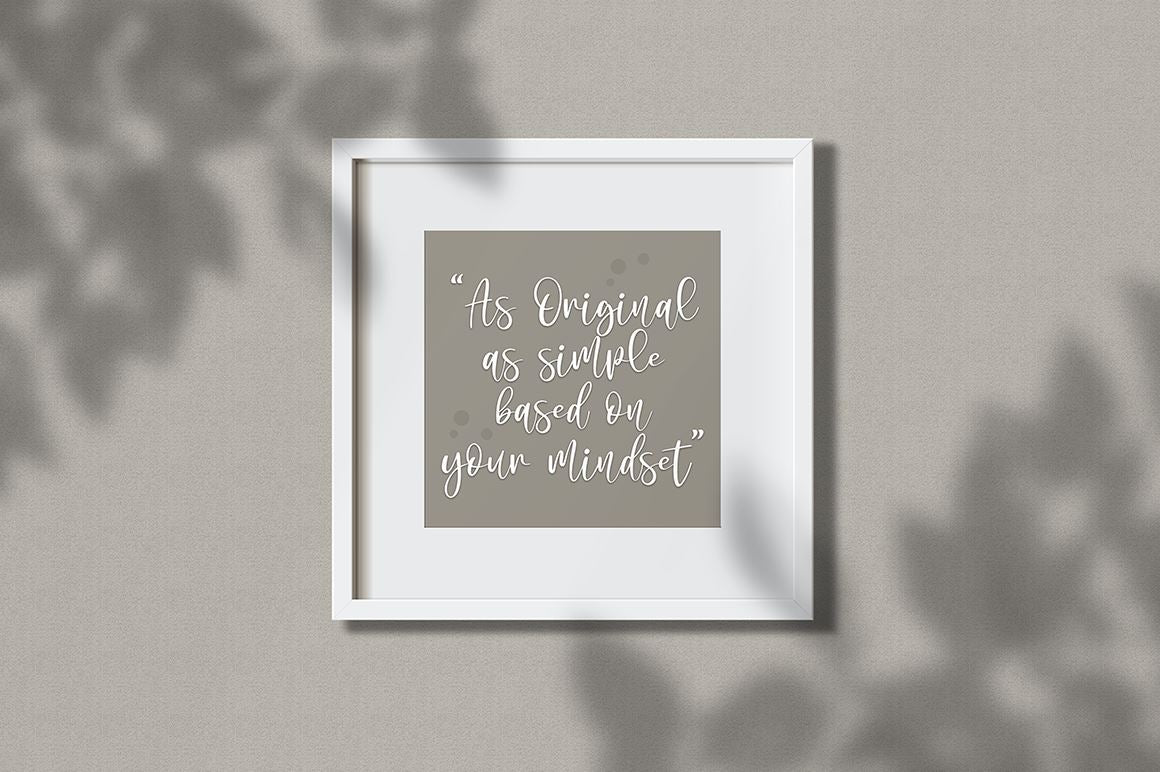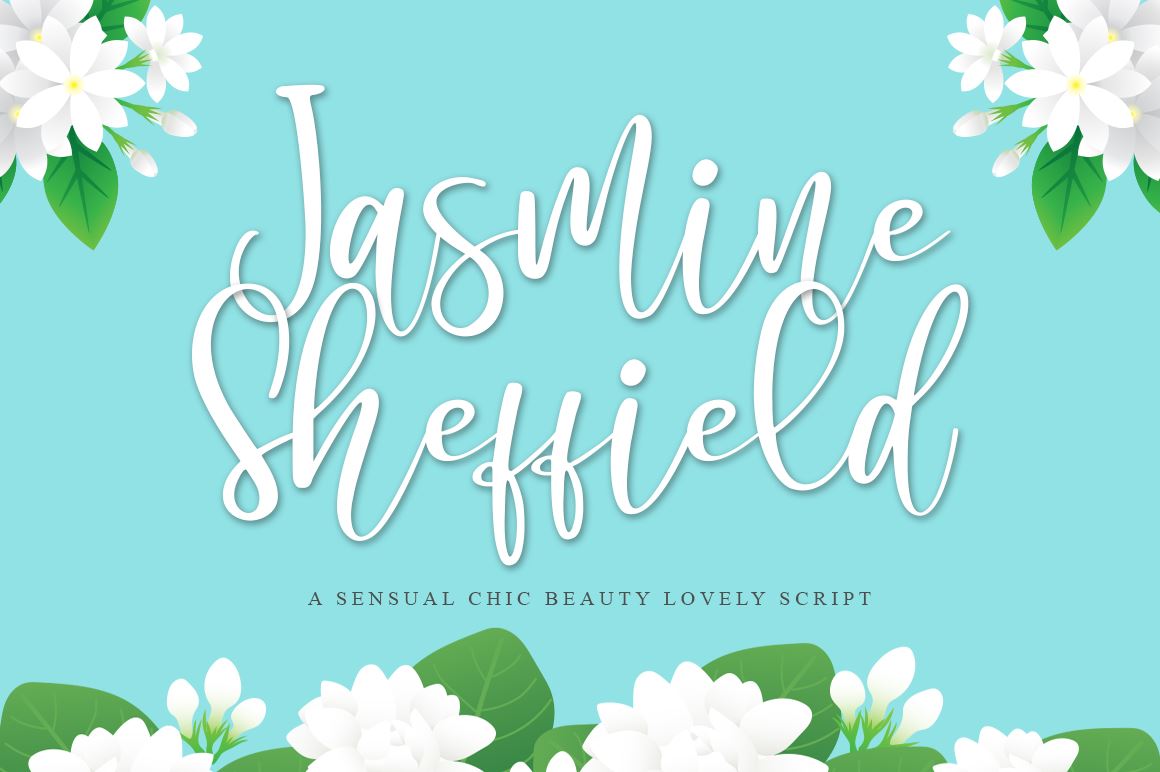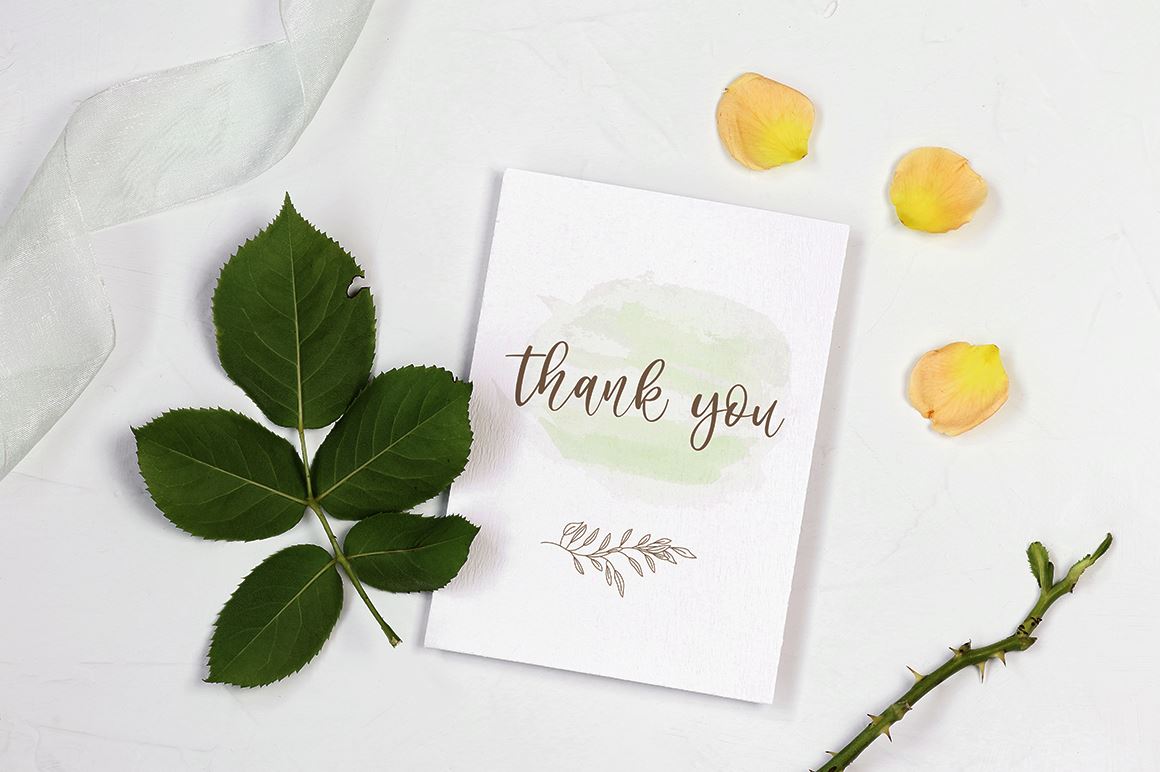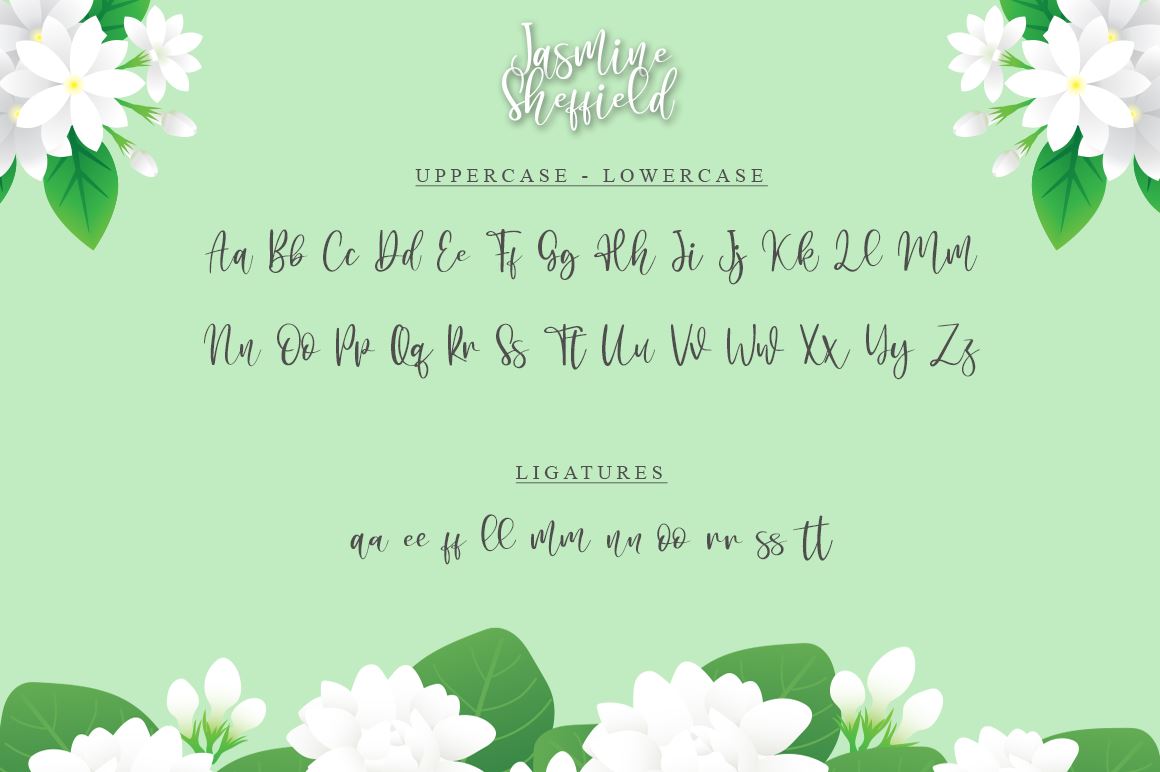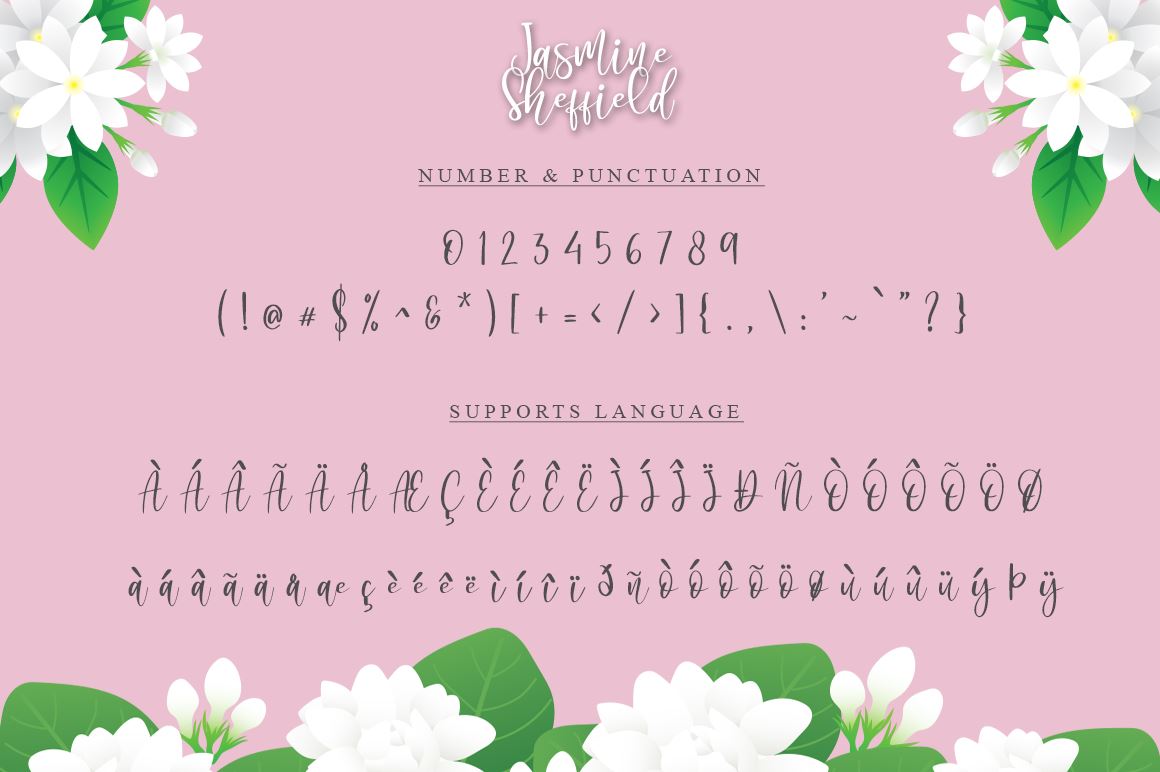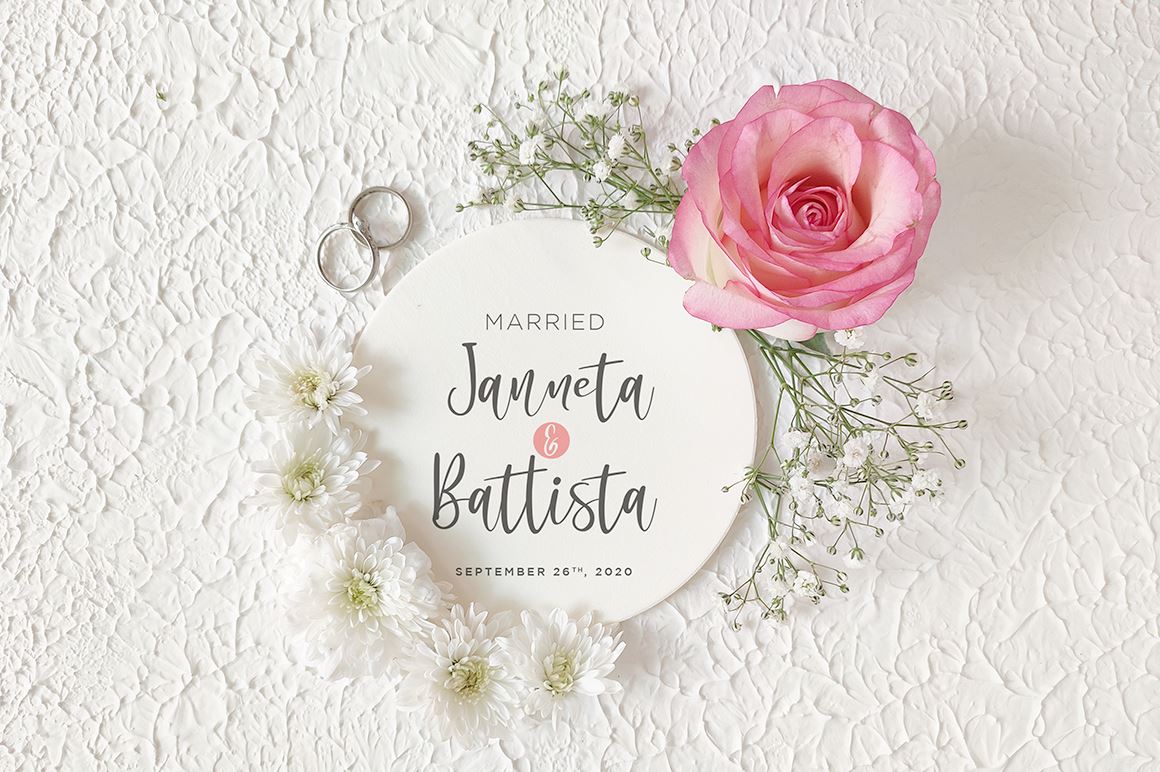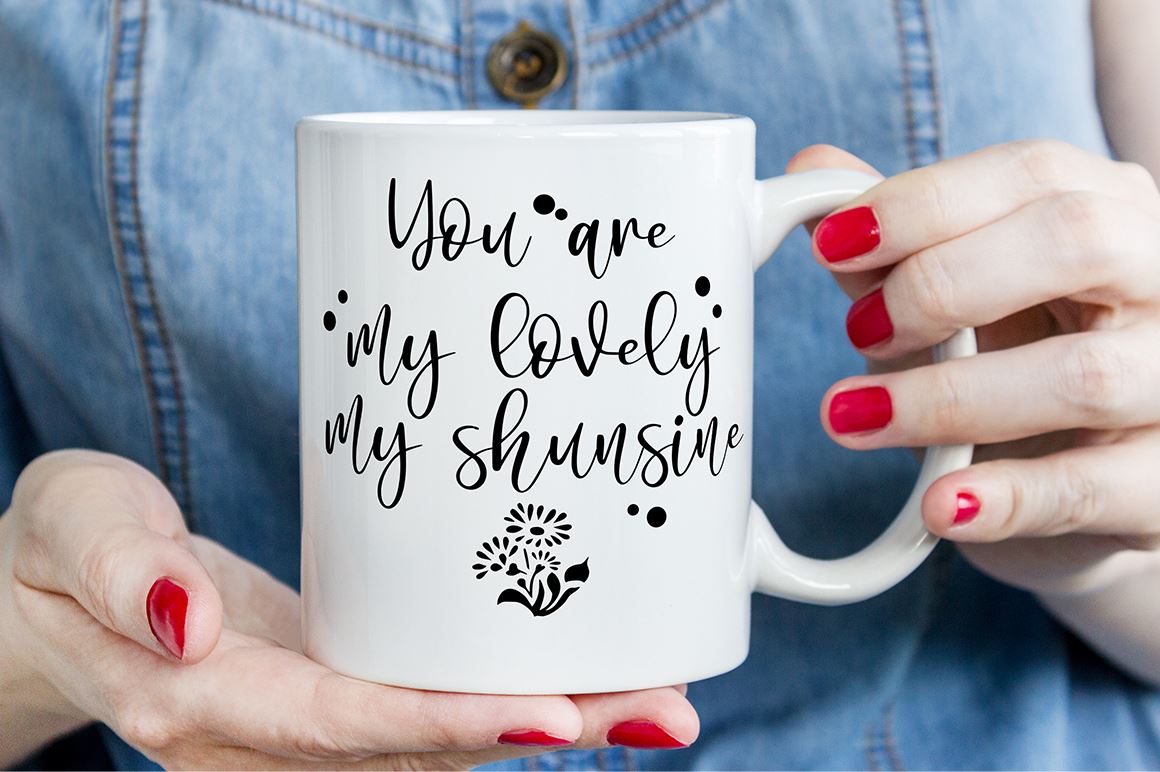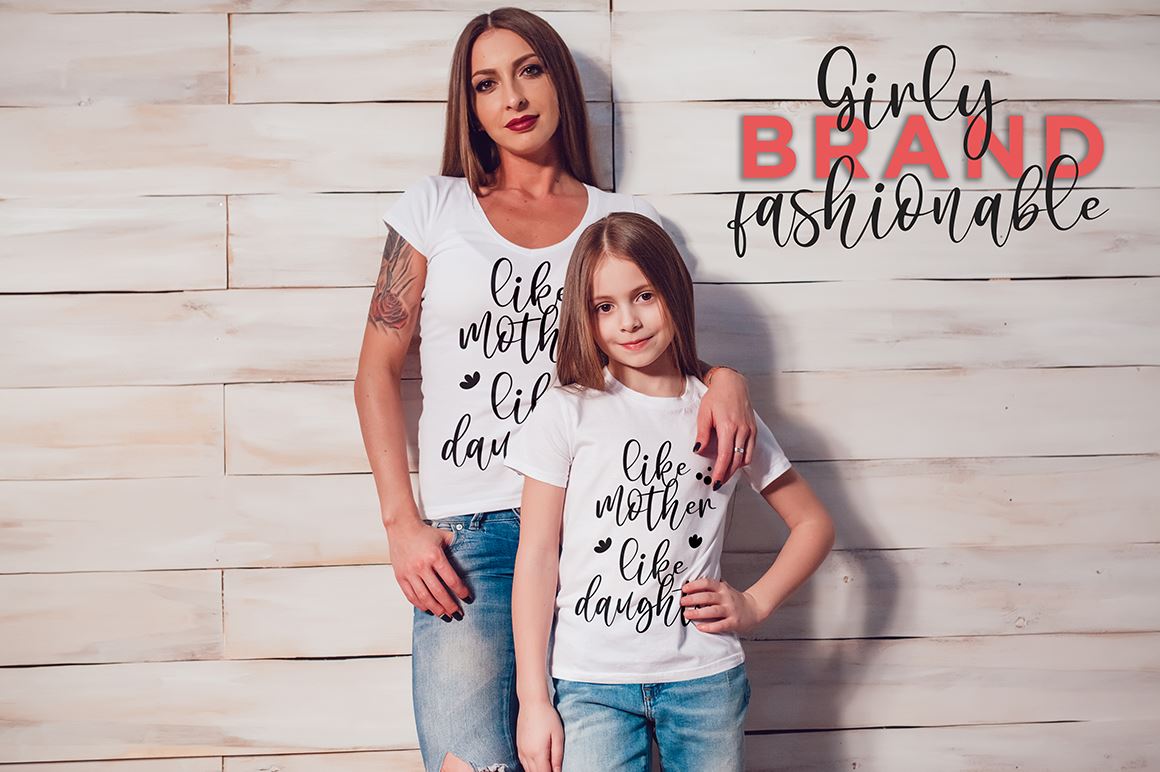
Jasmine Sheffield a Chic Sensual Script
About Jasmine Sheffield a Chic Sensual Script
Jasmine Sheffield Sensual Chic Modern Calligraphy Introducing the elegant Jasmine Sheffield Script Font! If you are needing a touch of casual chic calligraphy for your designs, this font was created for you! What’s Included: Uppercase and Lowercase Ligatures Number and Punctuation Support Language All above mentioned available in (TTF + OTF + WOFF) This font works best in a program that supports OpenType features such as Adobe Indesign, Adobe Illustrator CC and CS, or Adobe Photoshop CC and CS also CorelDraw More Questions? Here are some (potential) answers! You are not permitted to resell this font in any way. Multilingual Support is included for Western European Languages Cheers!